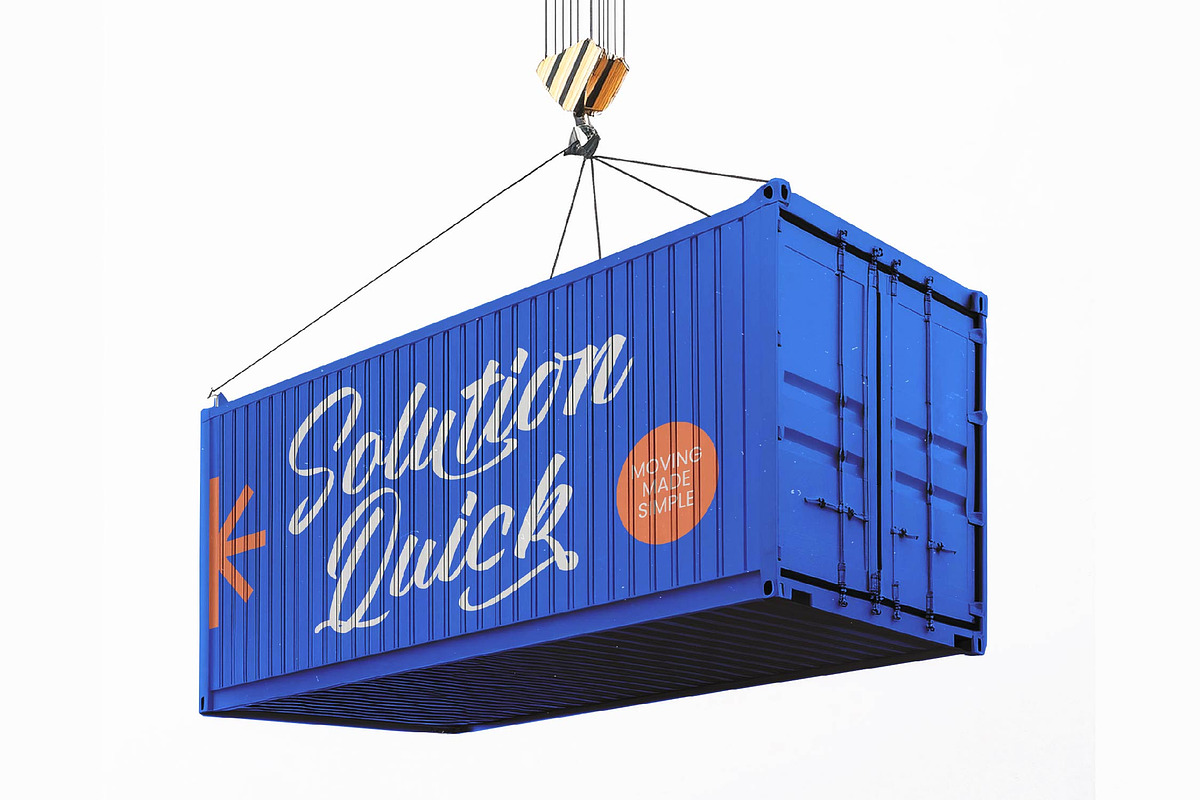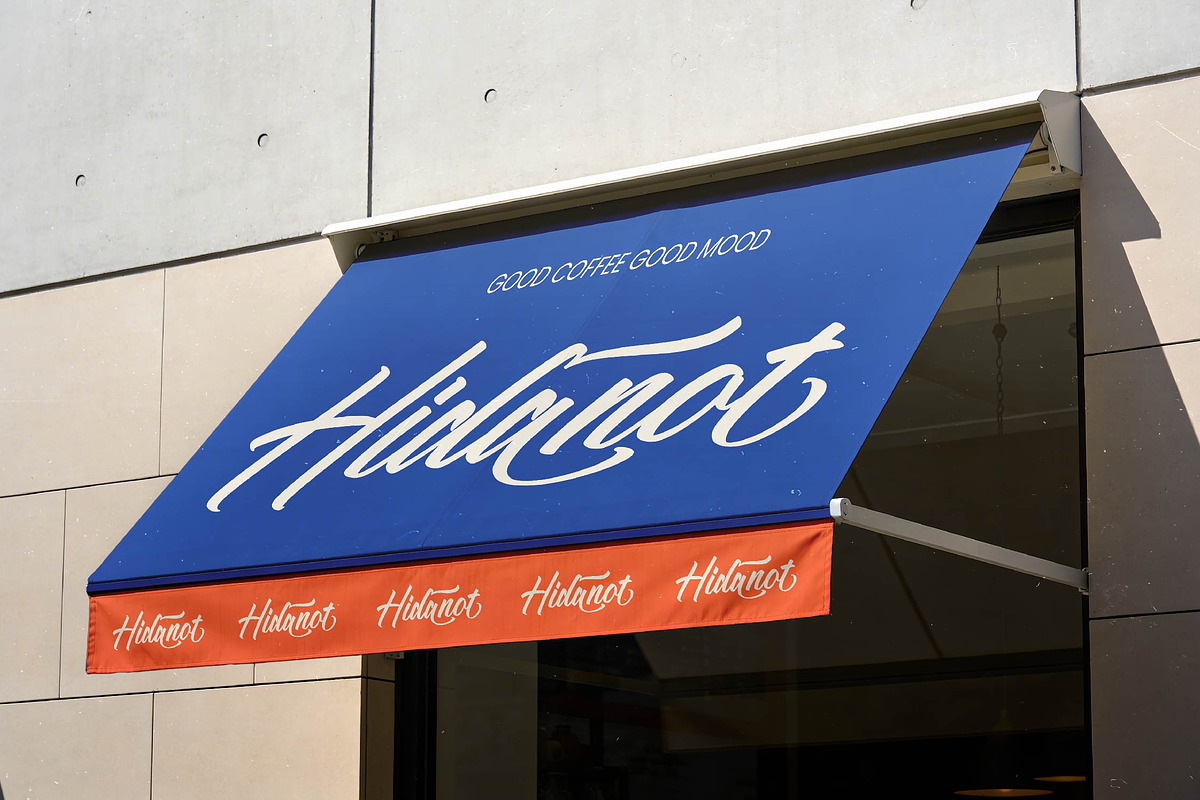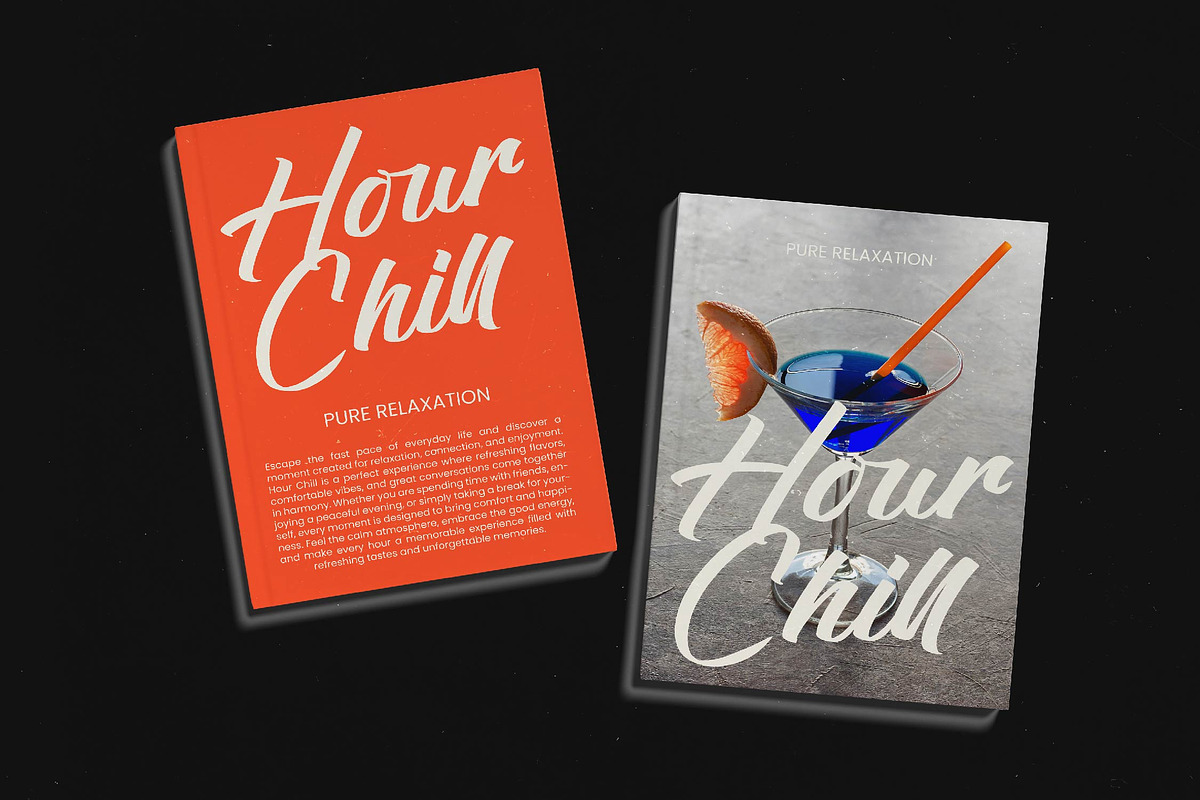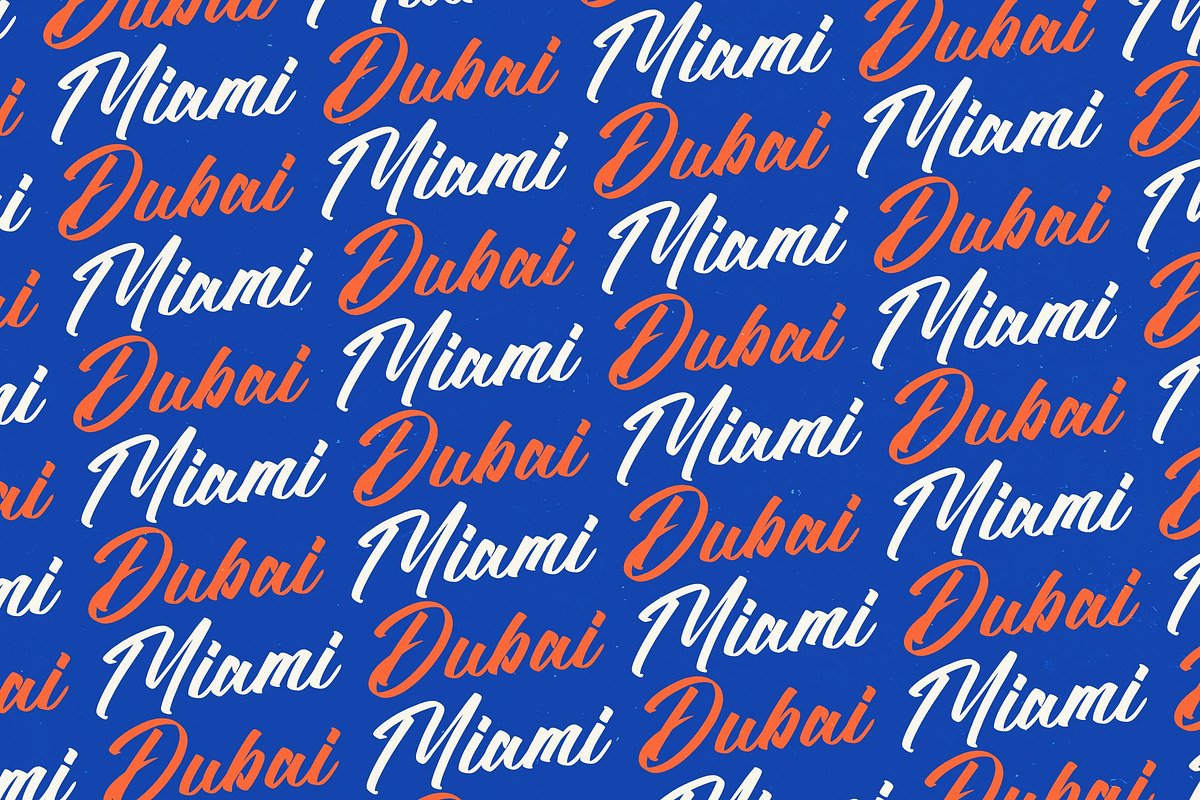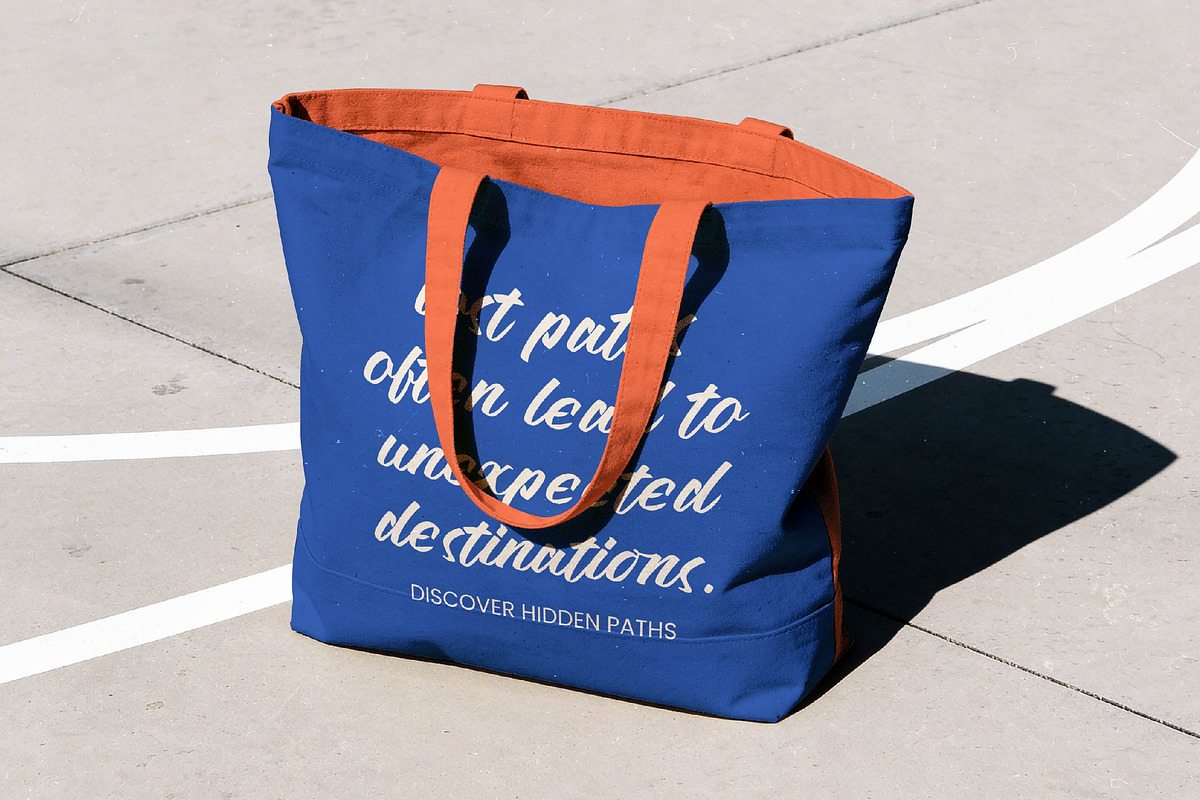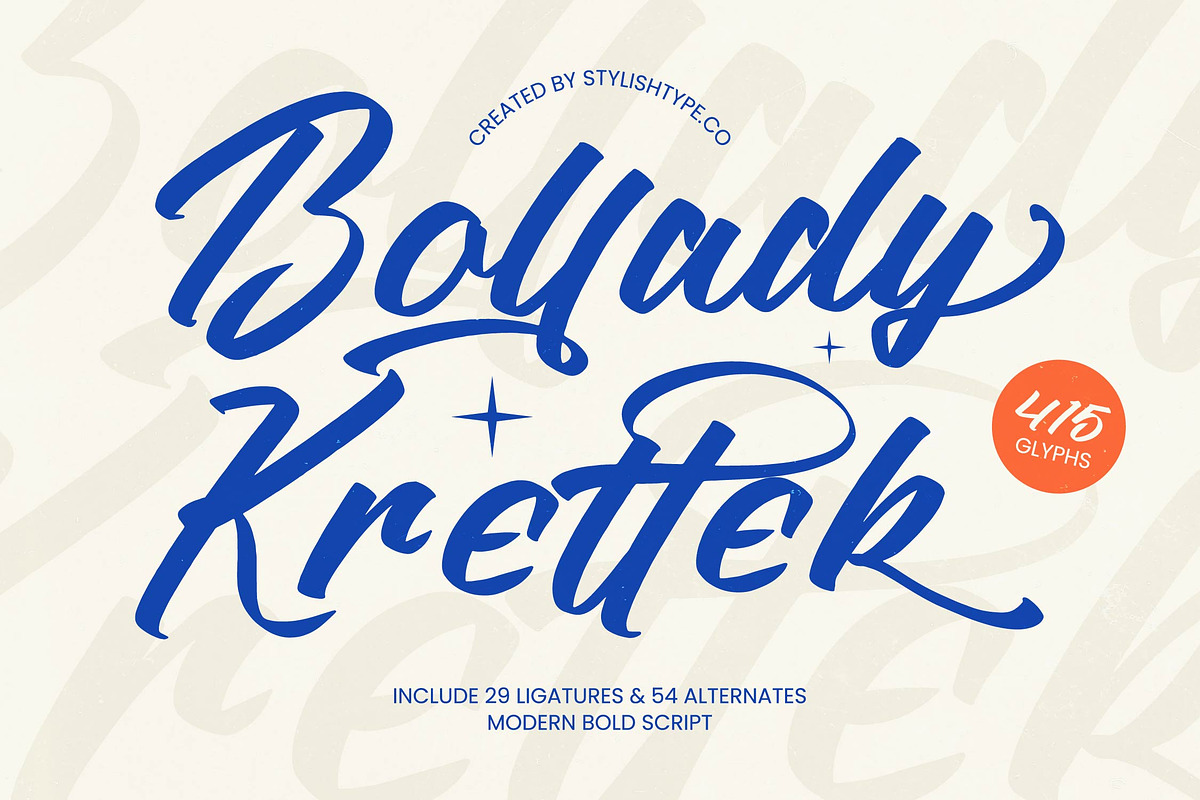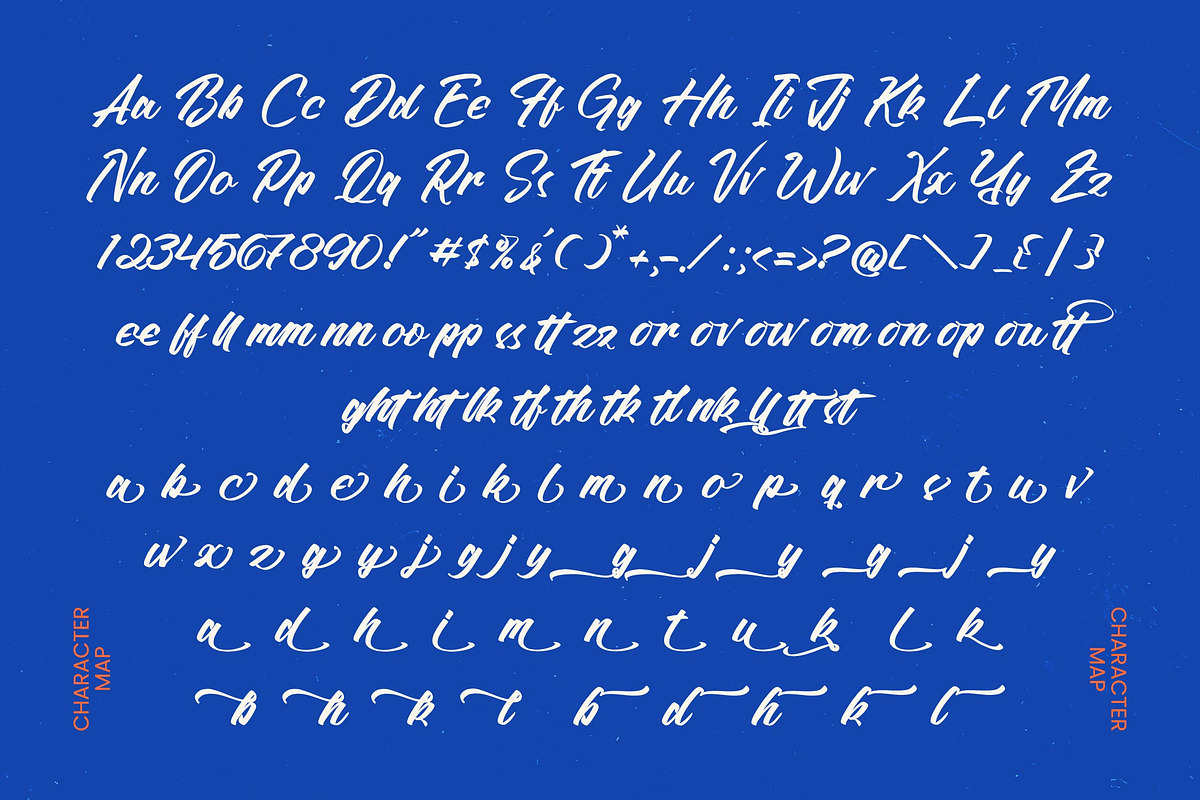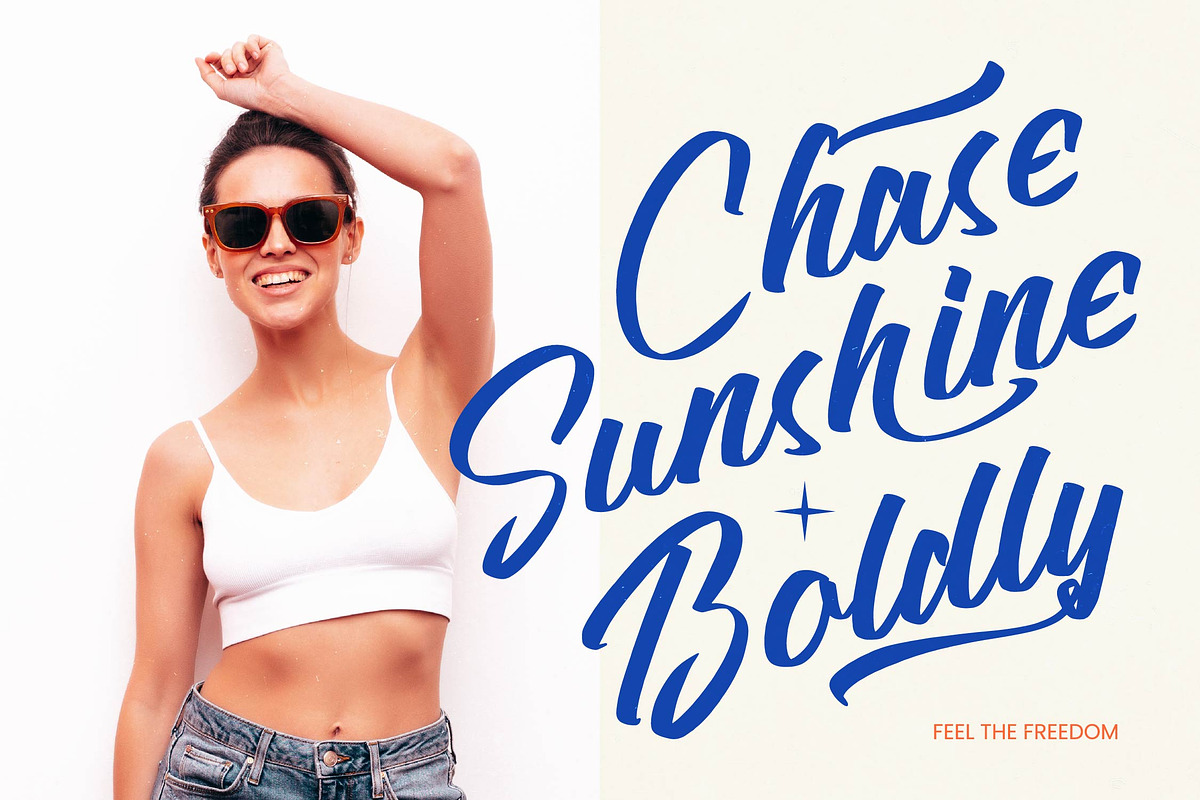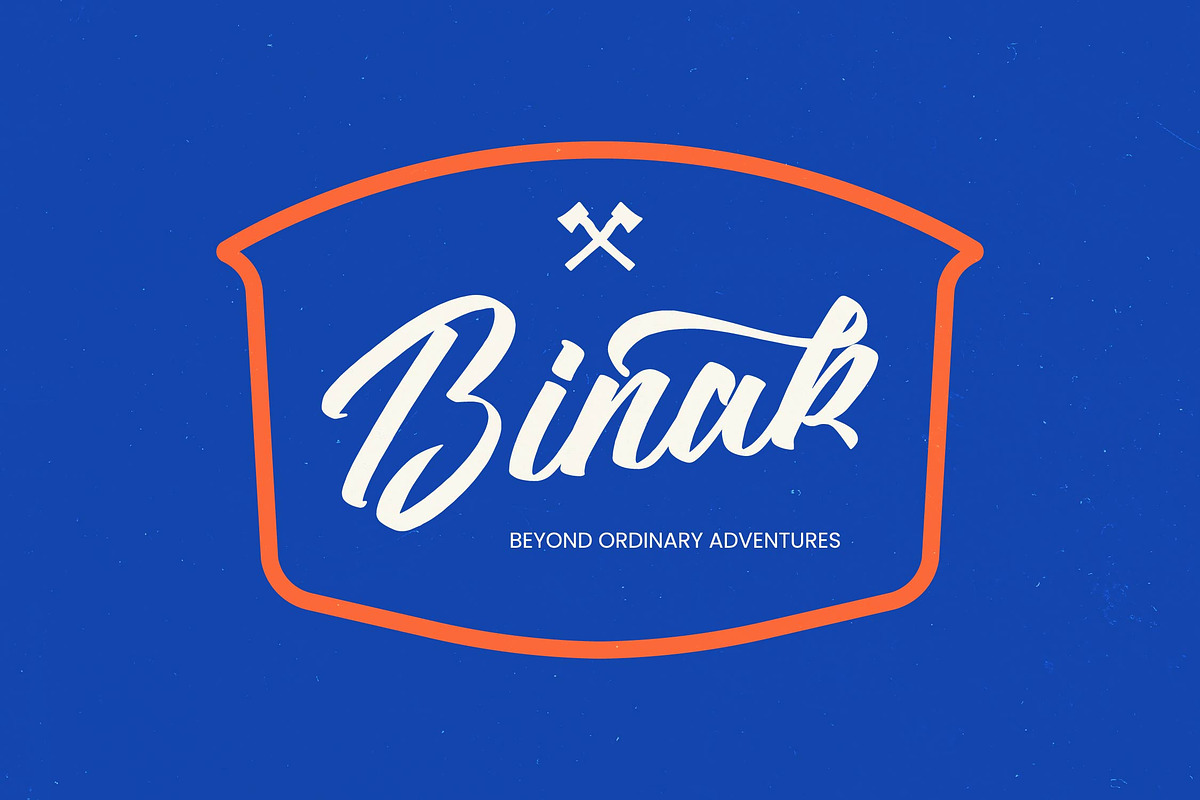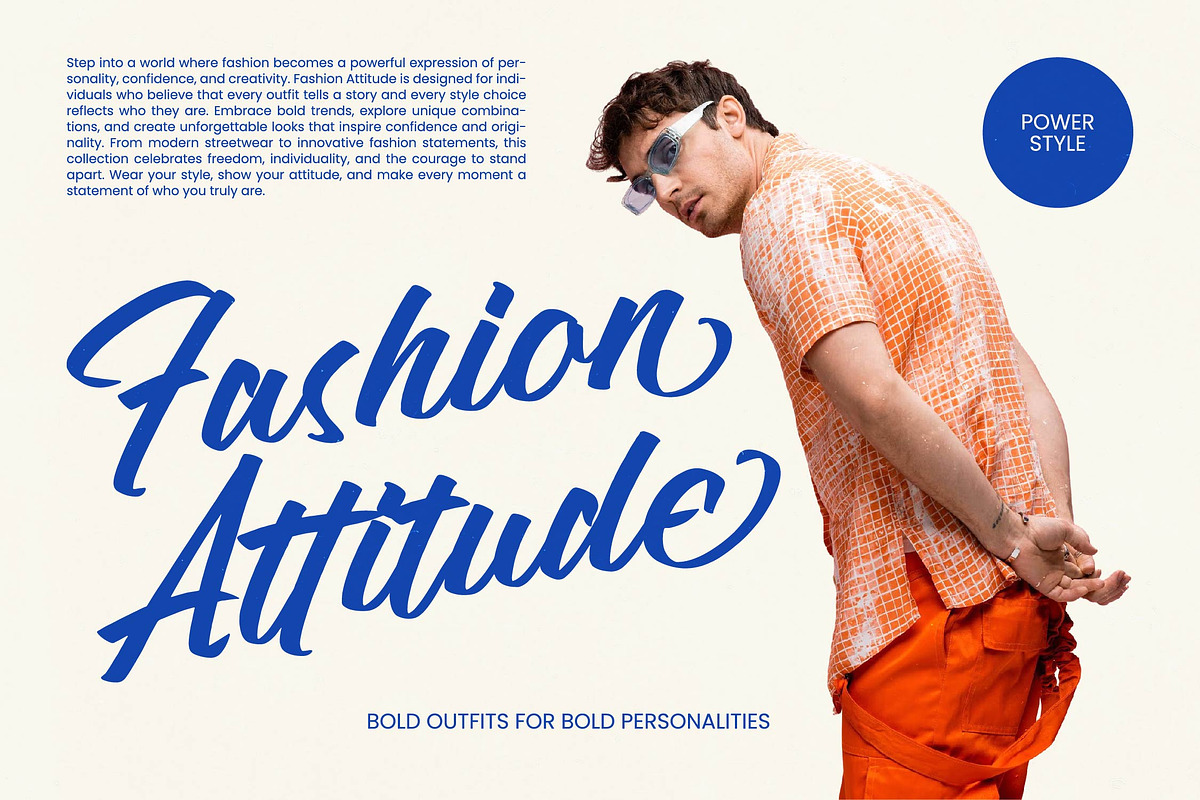
Bollady Krettek Modern Bold Script
Bollady Krettek - Modern Bold Script , Elevate your design projects with the striking personality of Bollady Krettek - Modern Bold Script. This font is a dynamic brush script that balances organic fluid strokes with a bold, contemporary edge. Crafted for impact, Bollady Krettek - Modern Bold Script offers a hand-lettered feel that brings authentic energy to any creative layout. Its robust weight and expressive curves make it an essential tool for designers seeking to capture attention immediately.
Unlock unparalleled creative freedom with a comprehensive set of 415 glyphs. This typeface includes 29 ligatures and 54 stylistic alternates, allowing for deep customization and a truly unique typographic rhythm. With its extensive multilingual support, Bollady Krettek - Modern Bold Script adapts seamlessly across global markets, making it incredibly versatile for international projects. Whether your message is in English or dozens of other languages, Bollady Krettek - Modern Bold Script maintains its premium aesthetic integrity and readability.
Command visual authority in the competitive world of luxury branding and commercial design. This typeface is the perfect choice for logo design, high-end packaging, and editorial headlines that require a touch of sophistication. Bollady Krettek - Modern Bold Script is also perfect for social media graphics, apparel design, and advertising campaigns where a bold, human-centric touch is required to resonate with modern audiences. Its versatility ensures it looks equally stunning on physical merchandise as it does on digital screens.